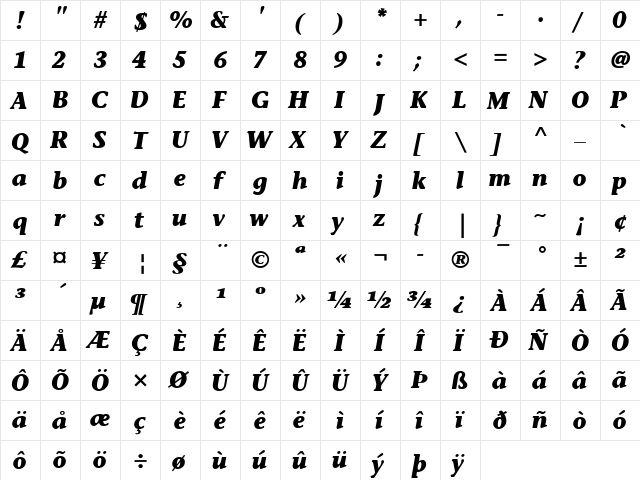
StoneInformal Bold Italic
Design Context for StoneInformal Typeface
StoneInformal is a composed and adaptable typeface that performs quietly and consistently across a wide range of design contexts. The slanted form adds forward momentum and visual energy. The heavy weight commands attention and anchors typographic hierarchies.
Pro Tip: Use StoneInformal for emphasis, pull quotes, and subheadings where its slanted energy can add rhythm to the layout.